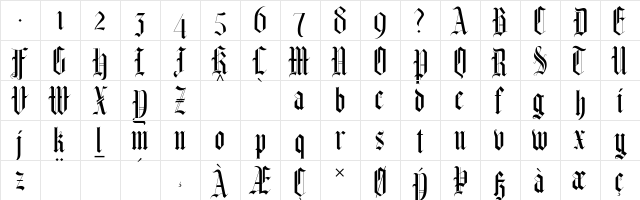
Helmswald Post Regular
Design Context for Helmswald Post Typeface
Helmswald Post takes a measured approach to typography — its balanced proportions and neutral character make it a reliable workhorse for both digital and print work.